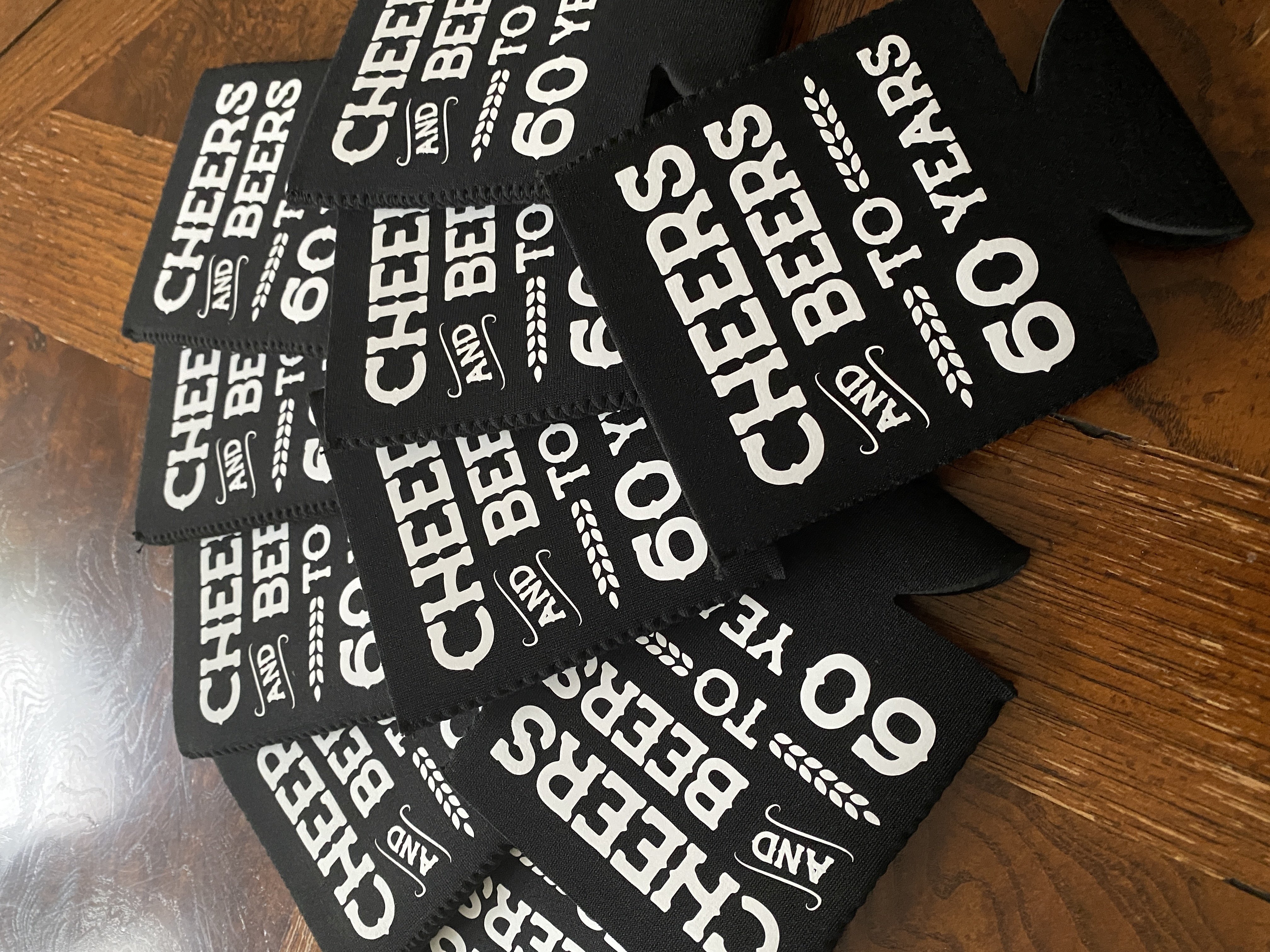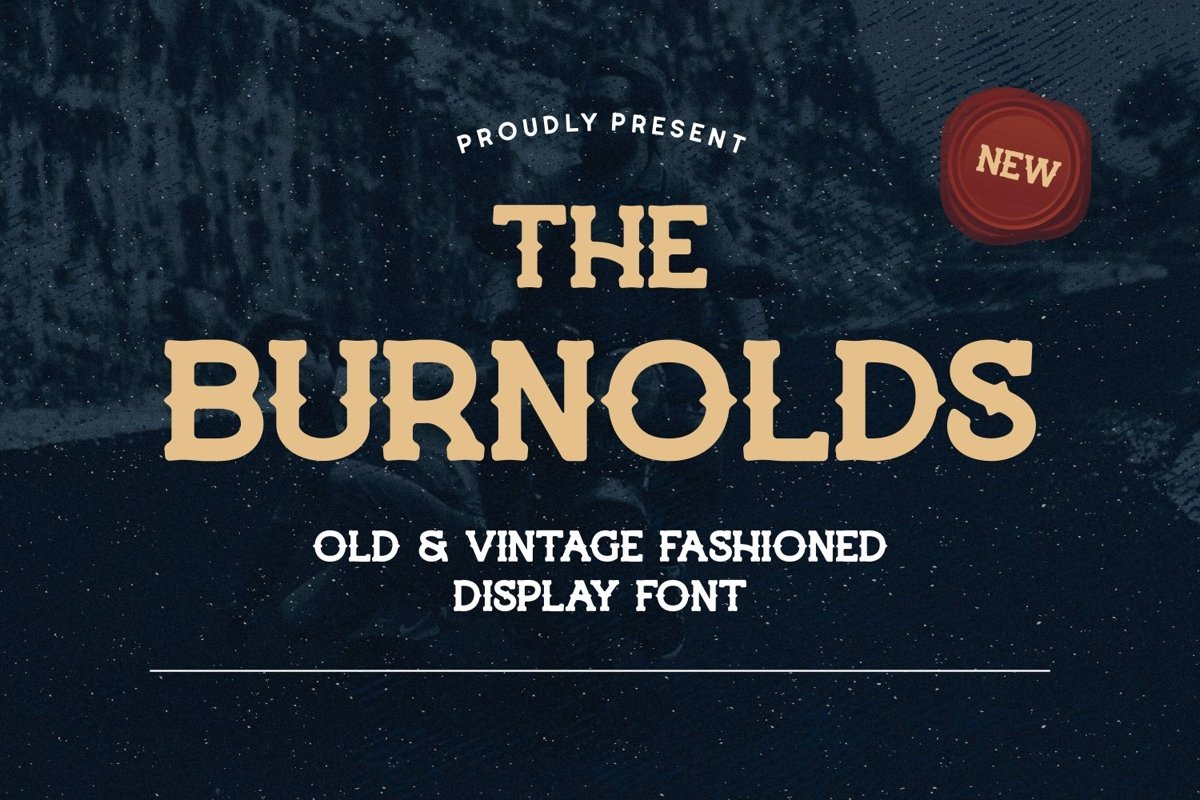
Burnolds is an authentic serif display come with old fashion themes. This font have unique shape in centre of characters. It matches applies in some designs such as the logotype, brand, packaging, quotes, poster, t-shirt, badge and more custom design. The features all-caps, numeral, punctuation & symbol, multilingual support, PUA encoded (fully accessible without additional design software).